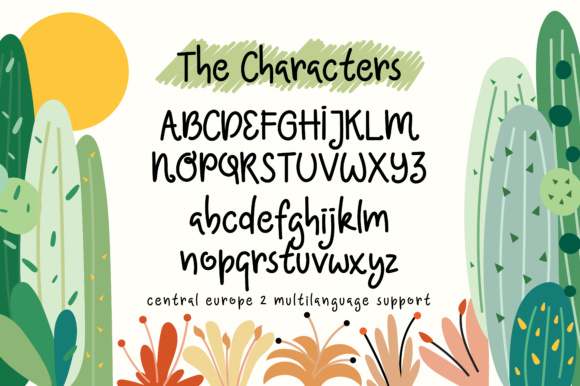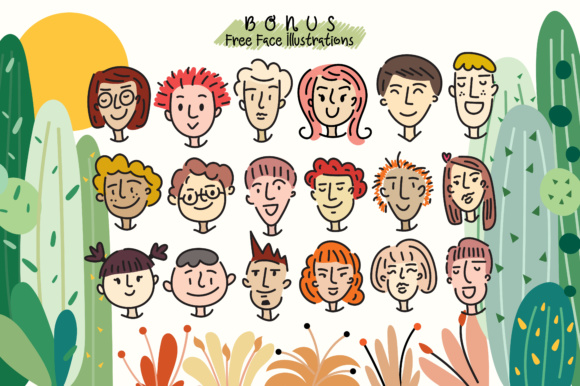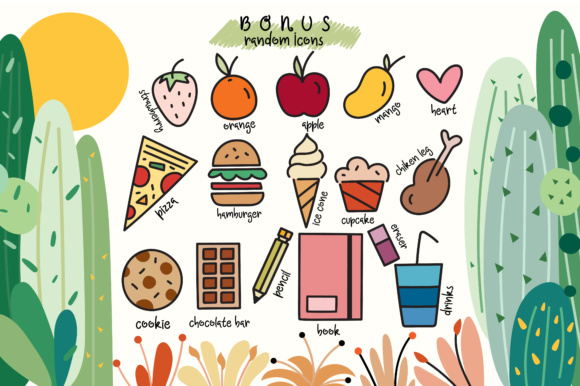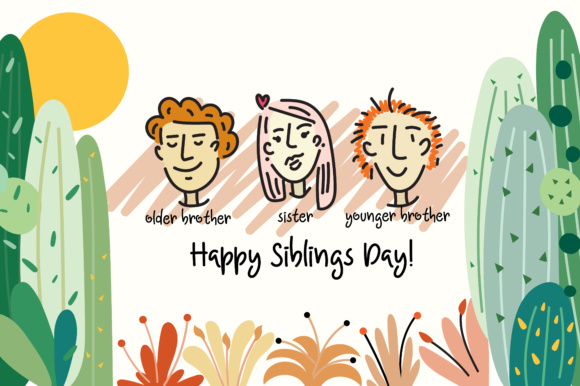
Uniquely Font
About Uniquely Font
Uniquely is a fun, handwritten display font that will add a ton of charm and joy to your work! This font works well in children’s designs and comes with added bonuses so you can create truly compelling creative projects!